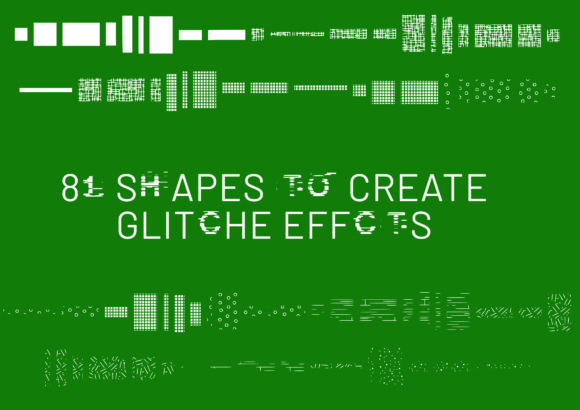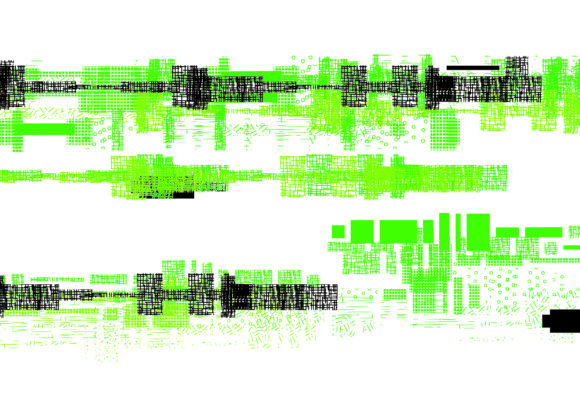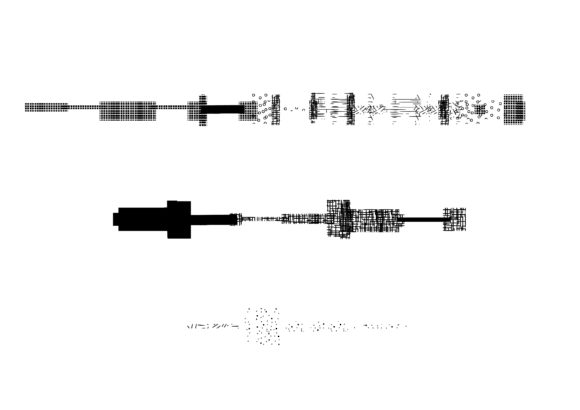
Get Ready to Unleash Your Creativity with Glitch Shape Font
Have you ever stared at a blank screen, waiting for inspiration to strike? That’s exactly what happened to me last week, until I stumbled upon the perfect spark. I was browsing through a collection of fonts when I came across Glitch Shape Font – a treasure trove of 81 unique dingbats in various shapes and patterns.
Glitch Shape Font is more than just a font; it’s a tool designed to help artists and designers create stunning glitch artworks, backgrounds, and designs. With its diverse range of shapes and patterns, the possibilities are endless. Whether you’re a seasoned pro or a beginner, Glitch Shape Font is an invaluable asset that can elevate your creative projects to the next level.
Glitch Shape Font Key Features
- Unique Character Set: The Glitch Shape Font features a set of unique, glitch-inspired characters that can be used to create a futuristic and high-tech look in designs.
- Glitch Effects: The font includes a range of glitch effects, such as pixelation, distortion, and glitchy textures, which can be applied to individual characters or entire text blocks.
Glitch Shape Font Review
When I first laid eyes on the Glitch Shape Font, I was immediately drawn to its unique aesthetic ✨. The font’s glitch-inspired design is both futuristic and retro, making it perfect for projects that require a touch of edginess. The font’s versatility shines through in its ability to work well in a variety of contexts, from digital interfaces to print materials.
Some of the font’s strengths include:
- ✨ Unique design that sets it apart from more generic fonts
- ✨ Highly customizable, with a range of weights and styles to choose from
- ✨ Works well in a variety of contexts, from digital to print
However, there are some limitations to consider ⚠️:
- ⚠️ Limited character set, which may not be suitable for projects that require a full range of characters
- ⚠️ May not be suitable for projects that require a high level of precision or accuracy, due to its glitch-inspired design
Overall, I’m impressed with the Glitch Shape Font’s unique design and versatility. While it may not be suitable for every project, it’s a great choice for anyone looking to add a touch of futurism and edginess to their design. With a little creativity and experimentation, the Glitch Shape Font can be a real showstopper.
Glitch Shape Font is perfect for creating futuristic, high-tech, or cyberpunk designs. It’s also great for adding a touch of edginess to your branding or marketing materials.
Some common use cases include:
1. Creating futuristic logos or branding materials.
2. Designing sci-fi or cyberpunk-themed graphics.
3. Adding a touch of edginess to your marketing materials.